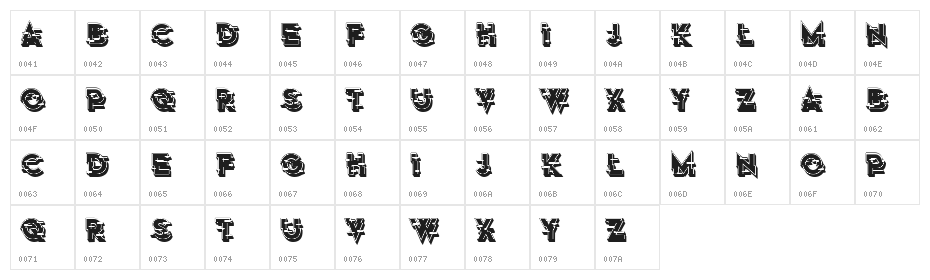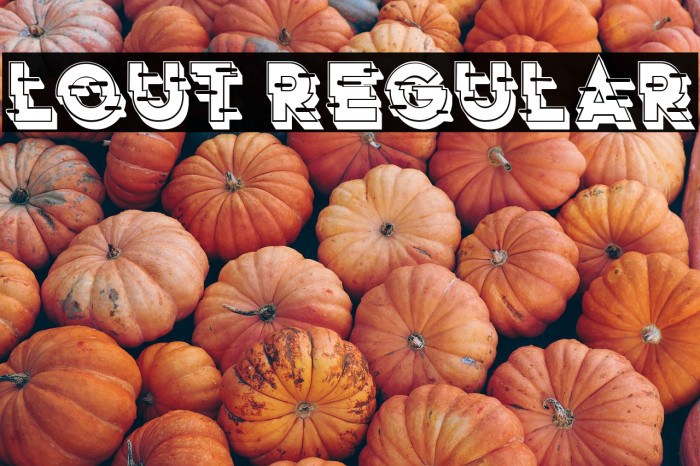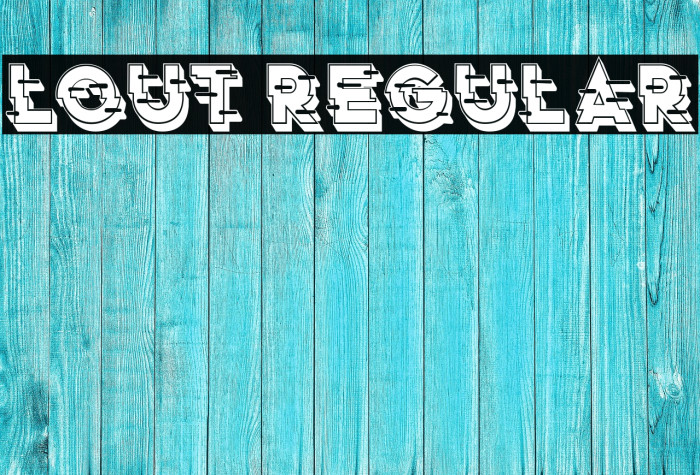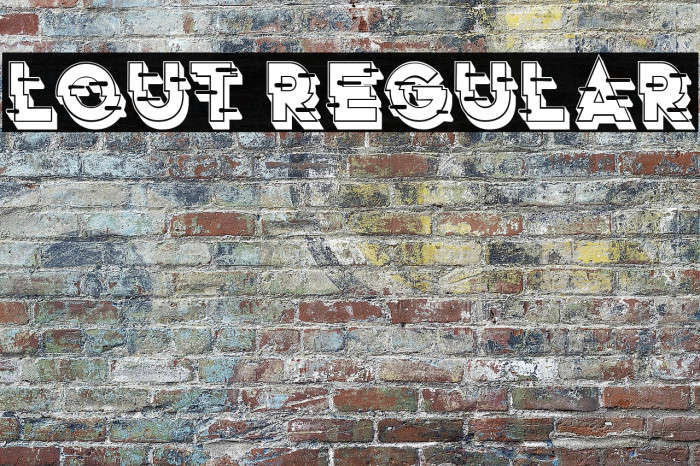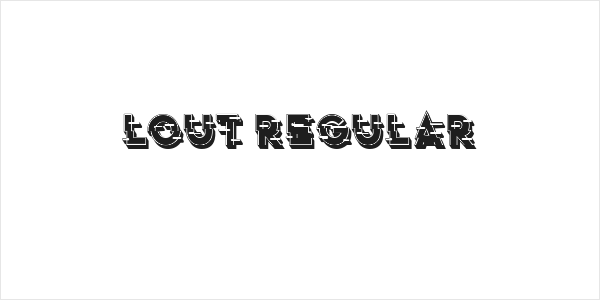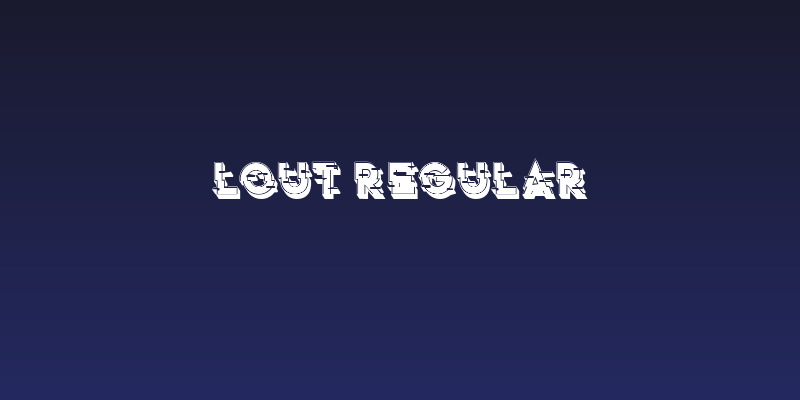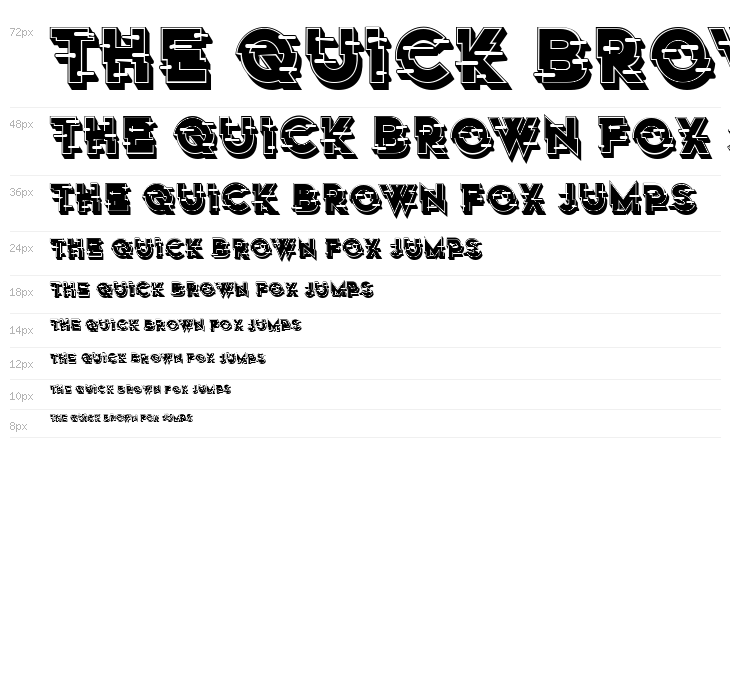
Lout Regular Font
Lout Regular Description
This font features a bold and striking design with a three-dimensional effect, characterized by sharp angles and geometric shapes. The letters are outlined with a thick black border, creating a strong contrast against the white interior. The style is reminiscent of retro or vintage signage, with a modern twist. The uppercase letters are particularly prominent, making them ideal for attention-grabbing headlines or titles. The font's unique aesthetic is both decorative and functional, suitable for a variety of creative projects.
| Overall Style | Retro, Modern |
| Proposed Projects | Ideal for posters, logos, branding, and any project requiring a standout, retro-modern aesthetic. |